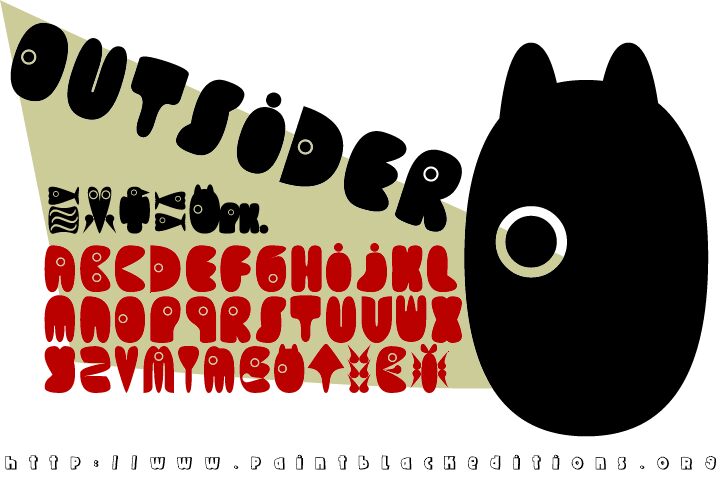
Outsider by Paintblack is a free cartoon display font with swollen, soft-edged letters and a decidedly odd silhouette. Deep notches, tiny round openings, and uneven widths make the forms look molded from rubber or cut from thick paper.
Its friendly bulk suits children's entertainment and quirky food packaging, yet the stranger letter shapes also fit surreal music posters. The rounded forms can echo blobs, bubbles, or simple character illustrations in game graphics and merchandise. It is most convincing when the lettering itself becomes part of the cartoon artwork.